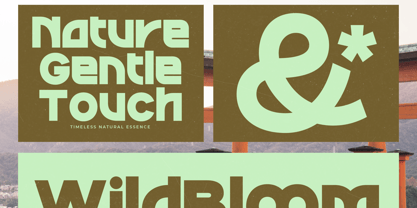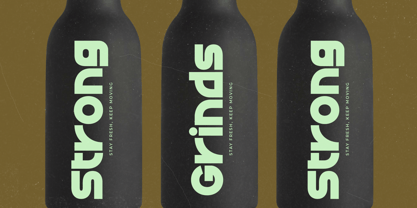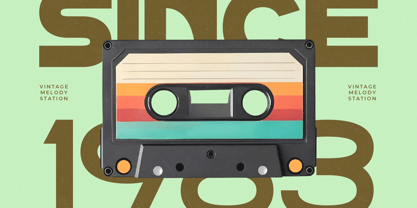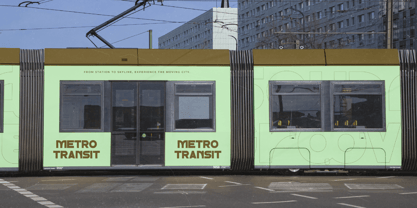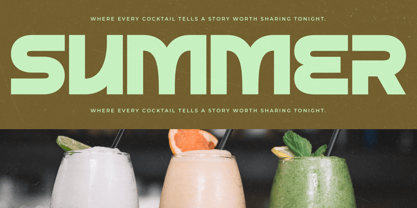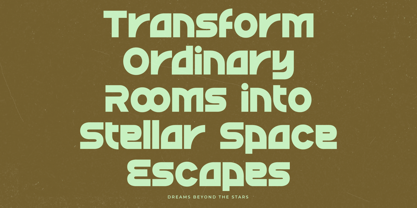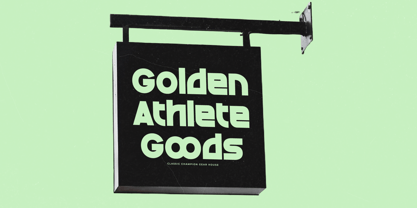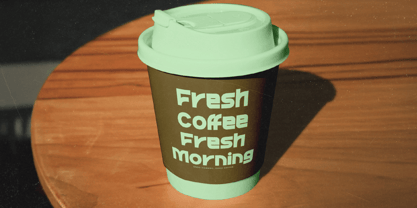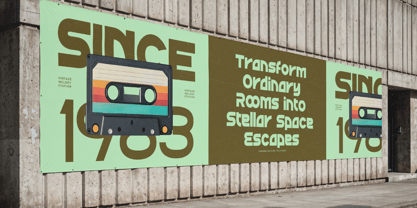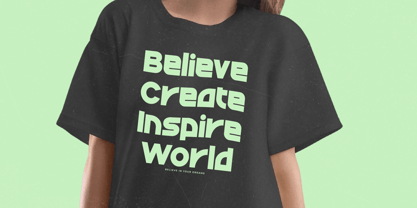
Sound Groove
by Timelesstype Studio
The Sound Groove Font Family was designed by Heru Utama Putra and published by Timelesstype Studio. Sound Groove contains 2 styles and family package options.
Sound Groove - Display Sans Serif Font , from Timelesstype , Suitable for any projects such as: logos, branding projects, homeware designs, product packaging, mugs, quotes, posters, shopping bags, t-shirts, book covers, name card, invitation cards, greeting cards, label, photography, watermark, special events, and all your other luxury and beautiful projects that need a Luxury Serif taste.